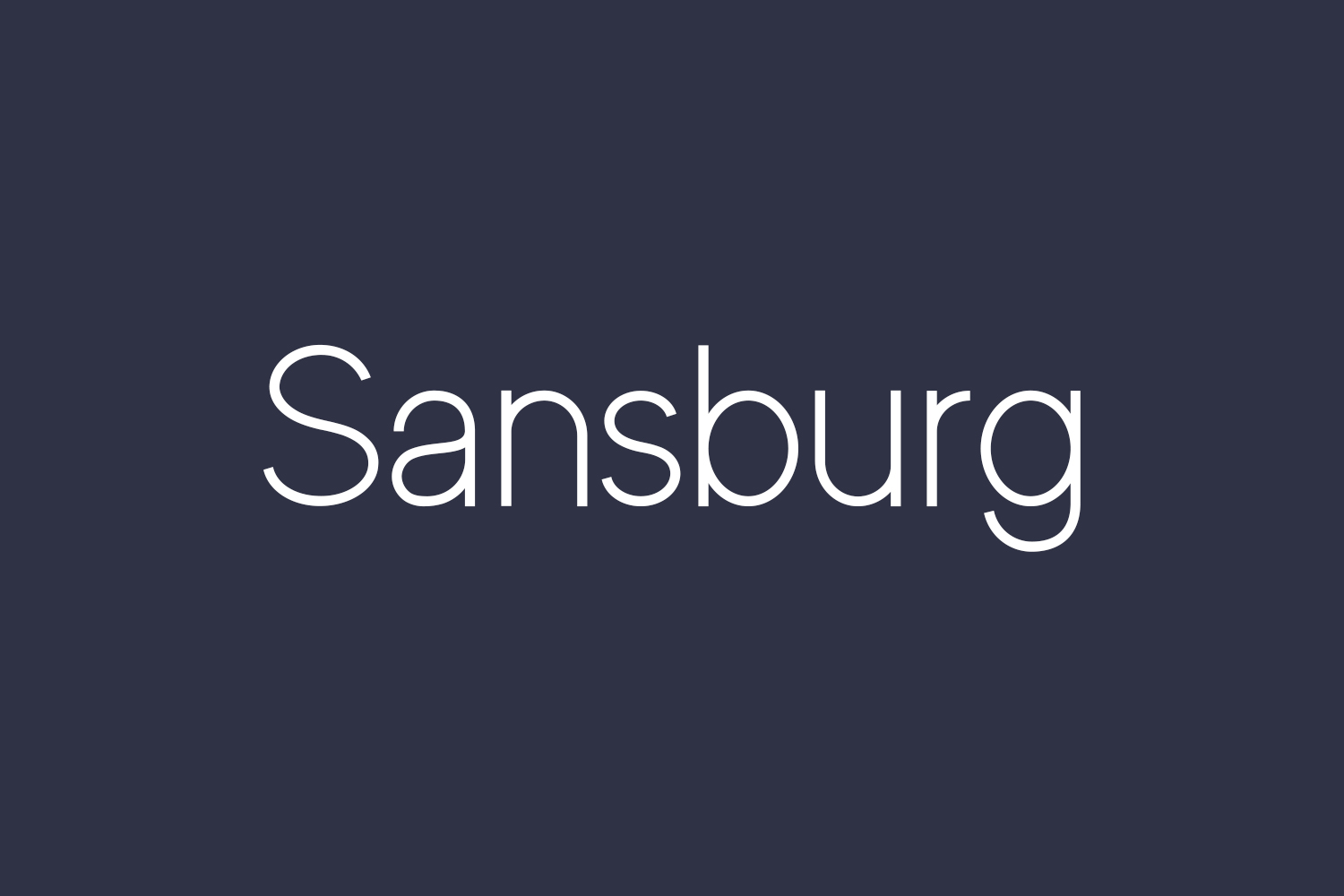
Sansburg Free Font is a dual font consisting of both a script and a sans serif style. This font is both versatile and cool. It has been PUA encoded, providing you with effortless access to all the swashes and glyphs. You will surely be enamored with its adaptable style, which can be used to produce remarkable designs.
Designed by Andrimada Creative